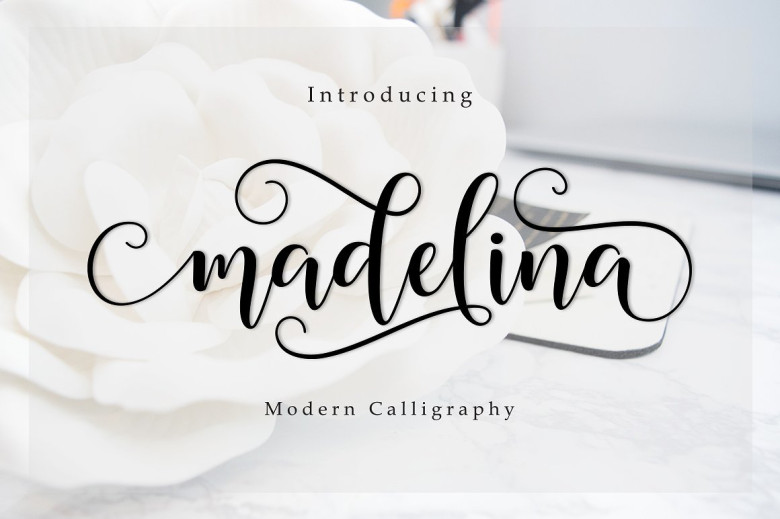
Madelina Script Font
You are looking for a beautiful and impressive typography for your project, this font was created for you! Introducing Madelina. Madelina is an created by Amarlettering. Madelina a new fresh & modern script with a handmade calligraphy style, decorative characters and a dancing baseline! So beautiful on invitation like greeting cards, branding materials, business cards, quotes, posters, and more!!